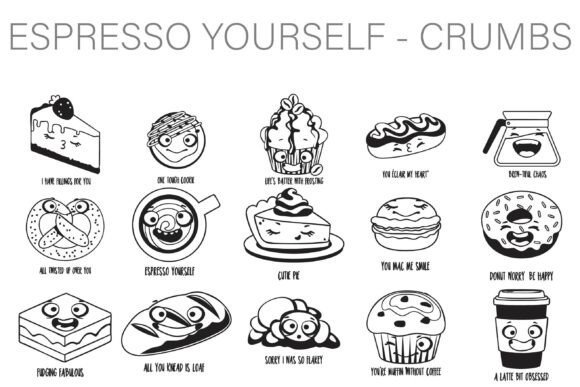
Get Ready to Indulge in Creativity
Have you ever found yourself in a design rut, struggling to come up with the perfect concept for a bakery or pastry shop? You’re not alone. Sometimes all it takes is a dash of whimsy and a pinch of personality to spark the creative process.
That’s where Espresso Yourself – Crumbs Dingbats Font comes in – a delightful collection of bakery-themed mascot dingbats that are sure to add a burst of flavor to your designs. With its pun-loving characters and witty food-themed quotes, this font is the perfect addition to any independent bakery branding, boutique pastry shop menu, or artisanal confectionery label.
As a designer, you know the value of a versatile and engaging font. Espresso Yourself Crumbs Dingbats Font delivers, offering a clean, bold line work that’s sure to make your designs stand out from the crowd.
- Font Style: Dingbats, Display Font
- Font Size: 1000 glyphs
- Unique Characteristics: A playful, hand-drawn design featuring coffee-themed dingbats, ideal for adding a whimsical touch to packaging, branding, and editorial projects.
Designer Review: Espresso Yourself Crumbs Dingbats Font
I recently had the chance to work with the Espresso Yourself Crumbs Dingbats Font and here’s my honest review.
- The unique, whimsical design of the font makes it perfect for adding a touch of personality to your project.
- The font’s irregular shapes and lines add visual interest and create a sense of movement.
- The font is highly customizable, allowing you to easily adjust the size, color, and spacing to fit your needs.
- The font can be quite busy and overwhelming, especially when used in large blocks of text.
- The irregular shapes and lines can make the font difficult to read for some users, particularly those with visual impairments.
- The font may not be suitable for formal or professional projects, as it has a more playful and casual feel.
Overall, I think the Espresso Yourself Crumbs Dingbats Font is a fun and creative addition to any project. While it may have some limitations, it’s perfect for designers looking to add a touch of personality and whimsy to their work. Just be sure to use it judiciously and consider the needs of your audience.
The Espresso Yourself Crumbs Dingbats Font is ideal for use in whimsical and playful designs, such as:
– Children’s book illustrations
– Food packaging and branding
– Social media graphics and advertisements